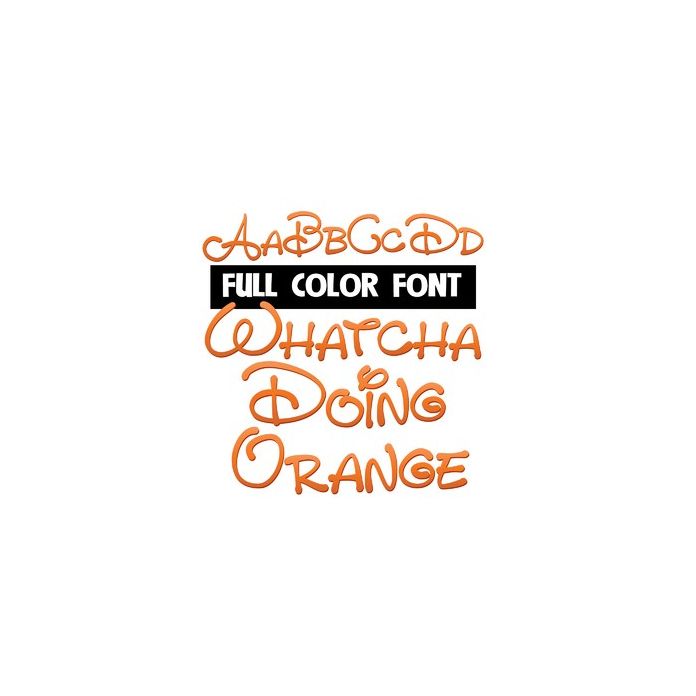
This full-color font is a hand-written font in a orange gradient. This font works best for titles, displays, posters and more. Please note color fonts will show as black in non compatible programs. This font type is compatible with Silhouette Studio.